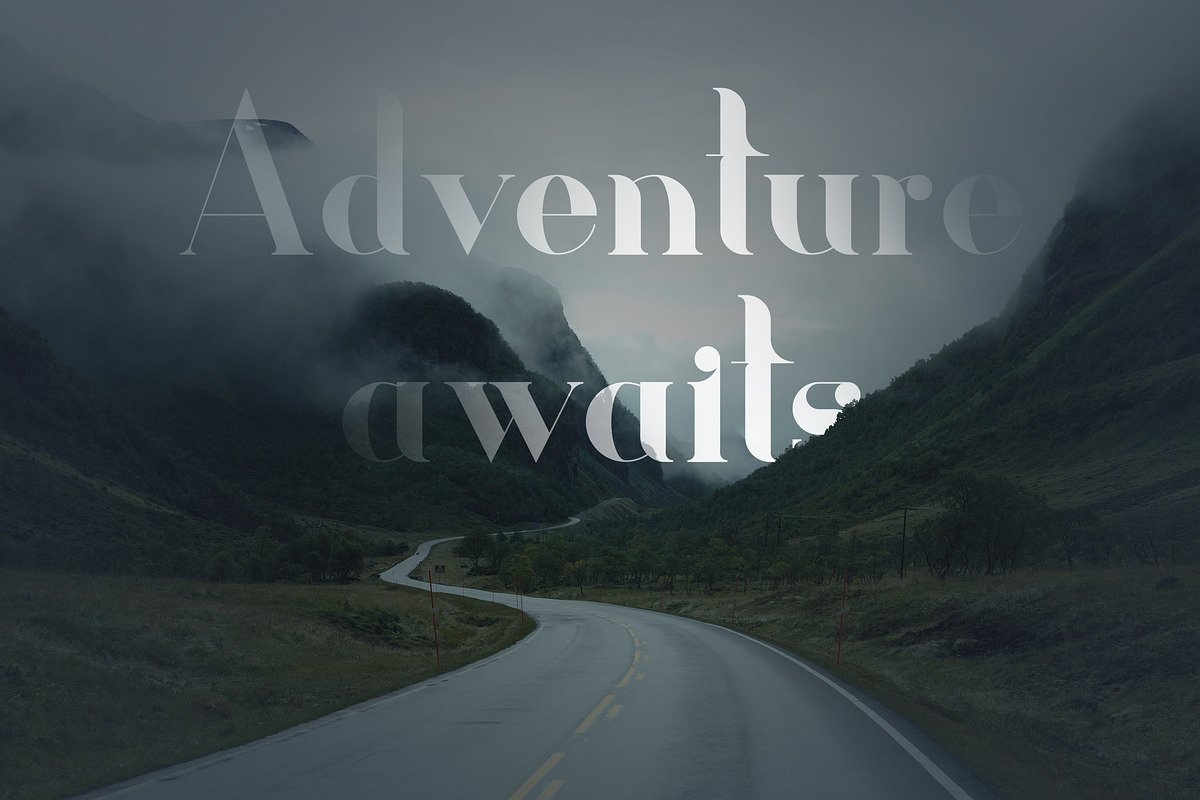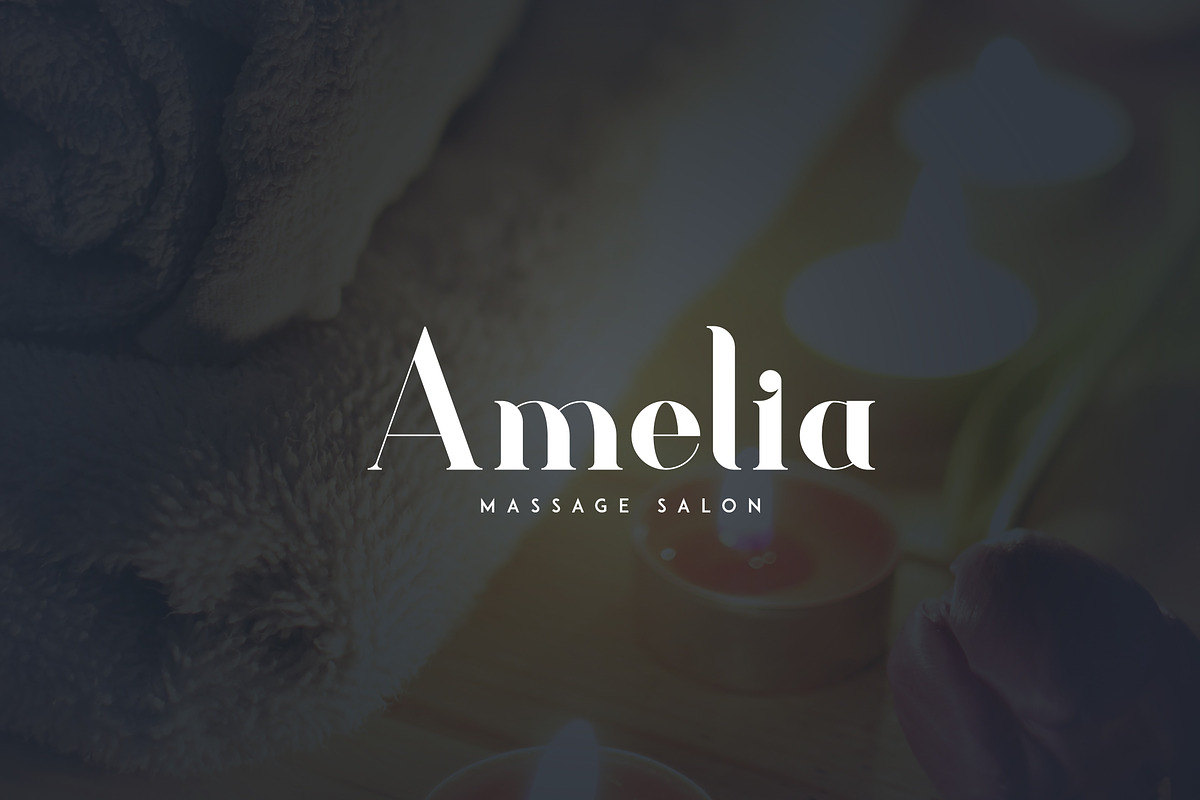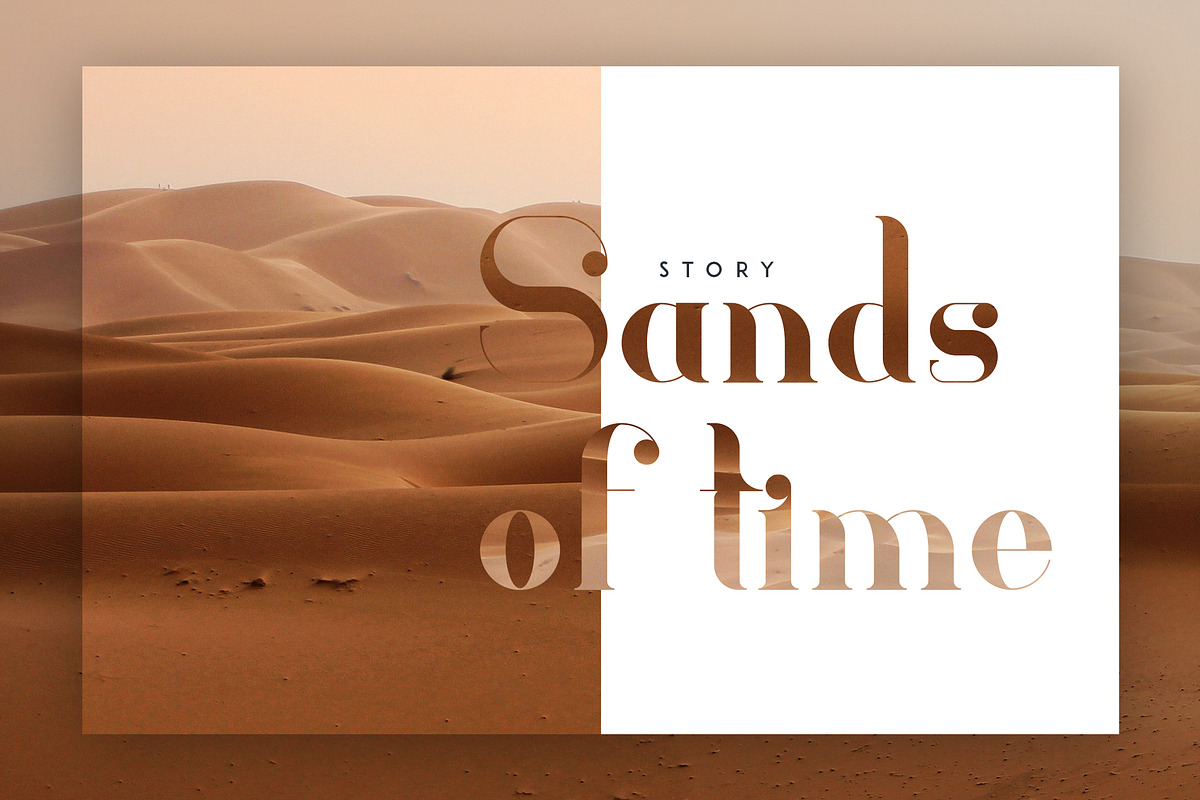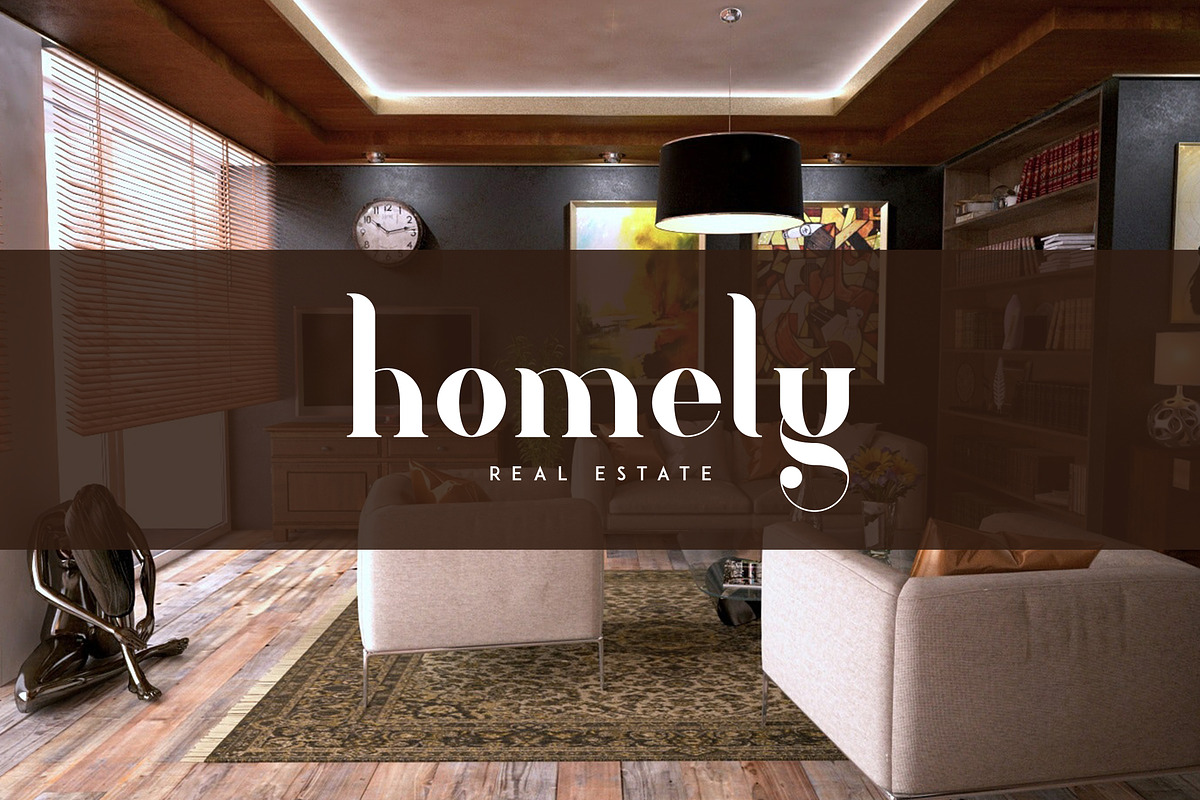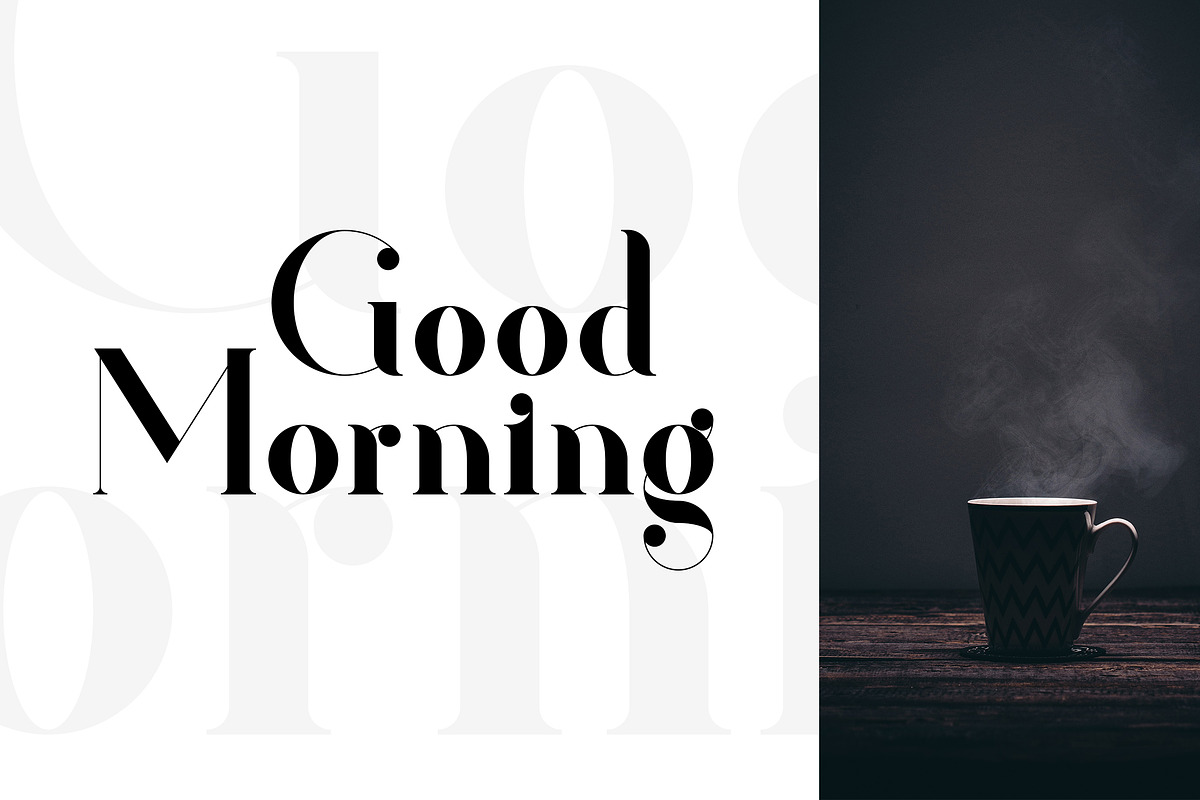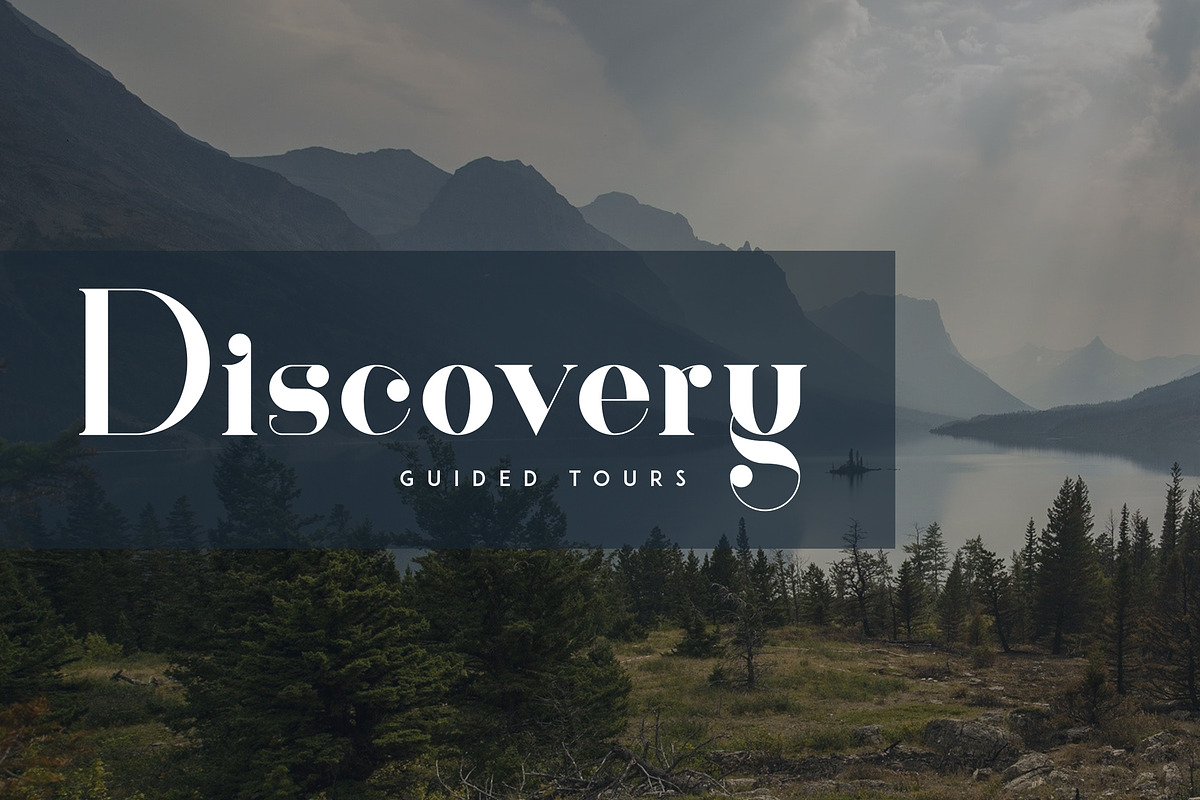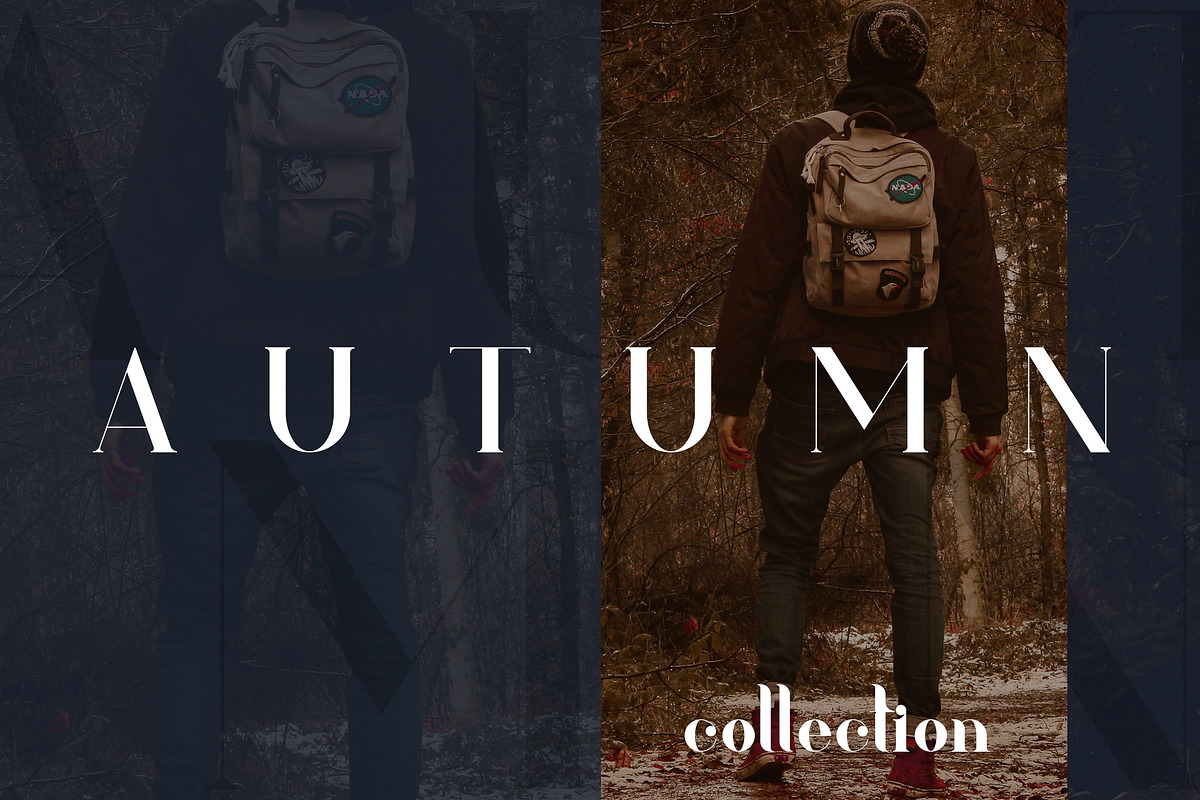
Kavaler - serif font
Kavaler is elegant, clean font with multilingual support. It's a very versatile font that works great in large and small sizes.
Kavaler is perfect for branding projects, home-ware designs, product packaging, magazine headers - or simply as a stylish text overlay to any background image.
Kavaler - serif font by VP Fonts fits naturally into Branding, posters, packaging, typography.